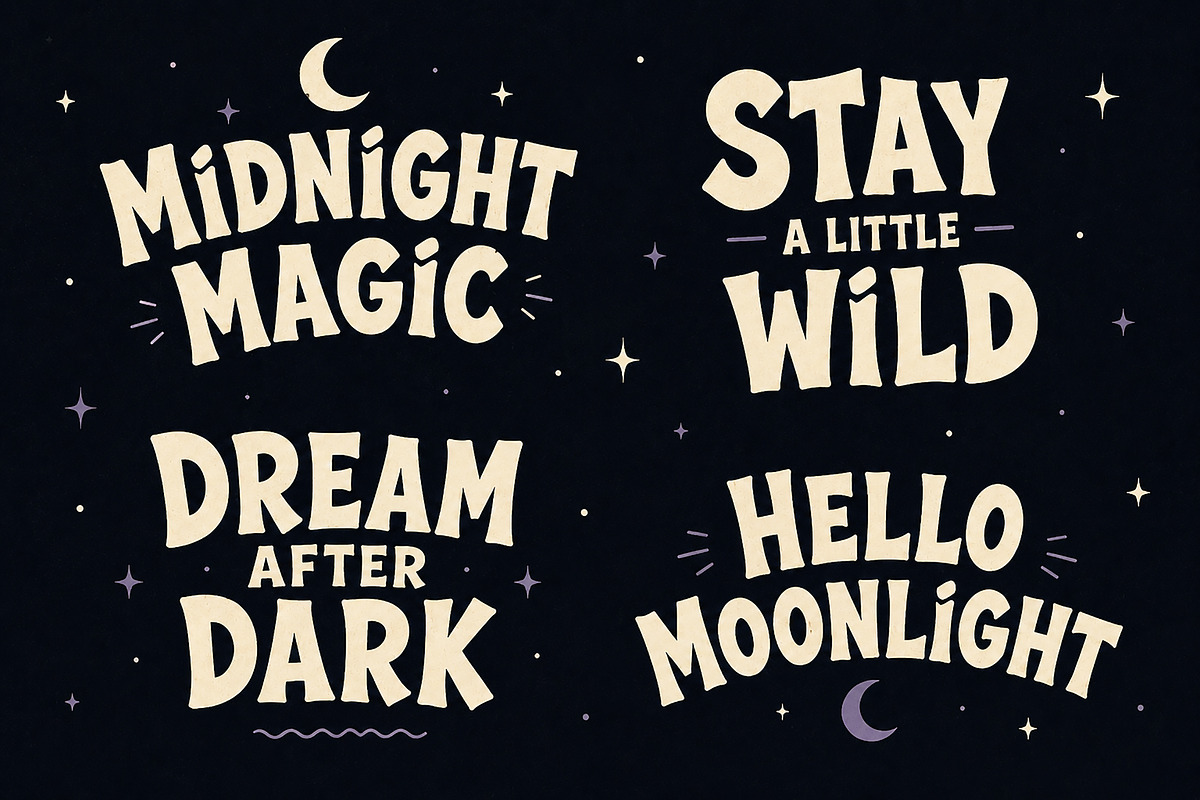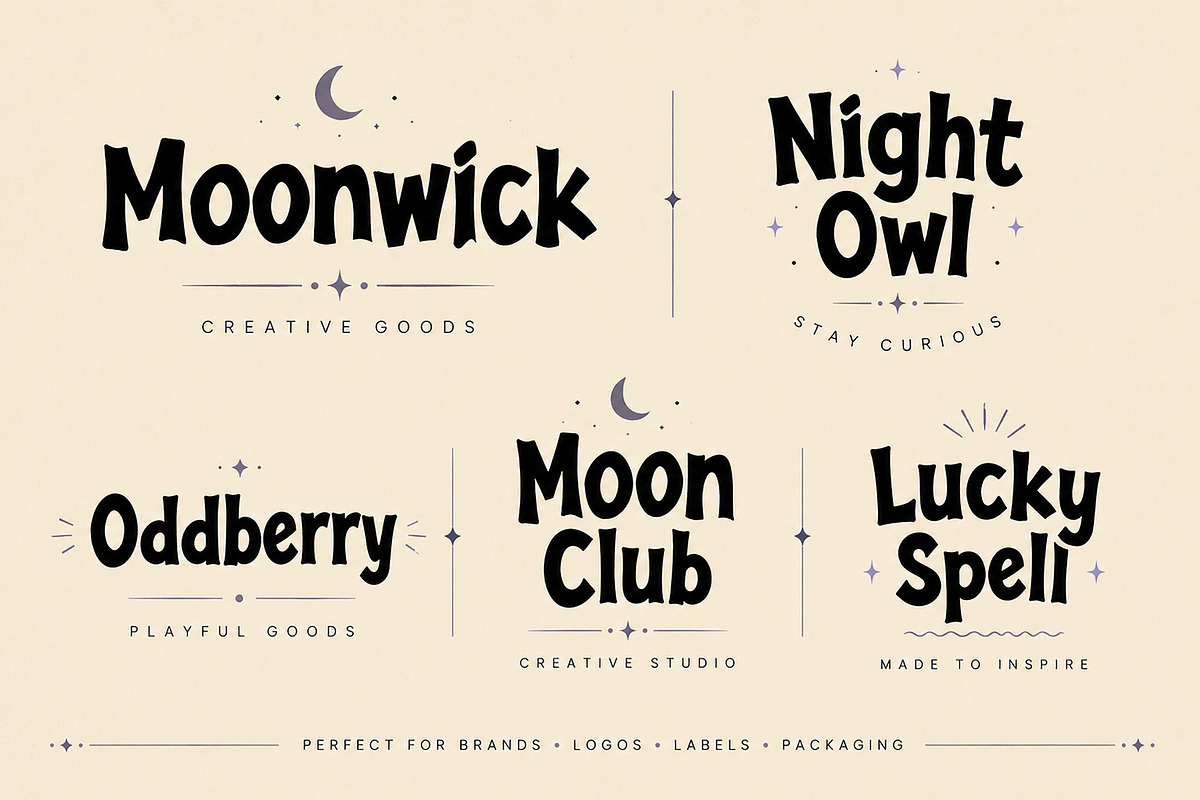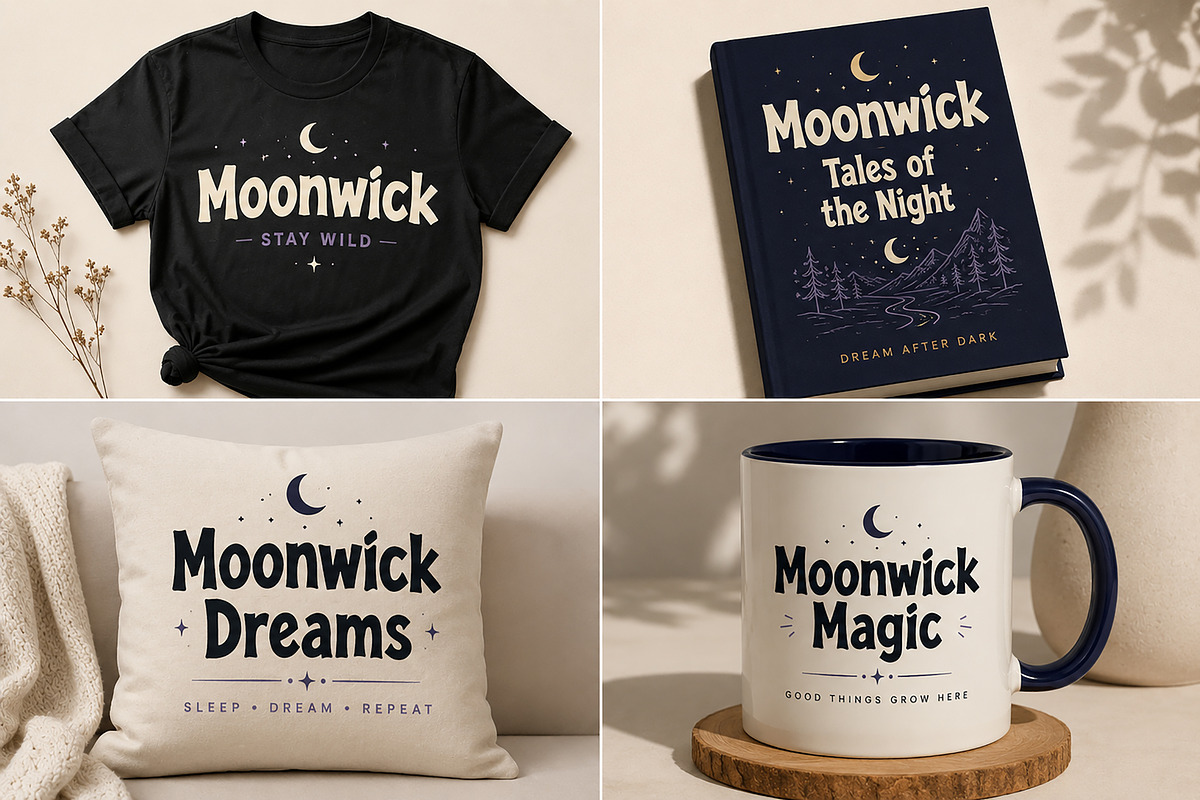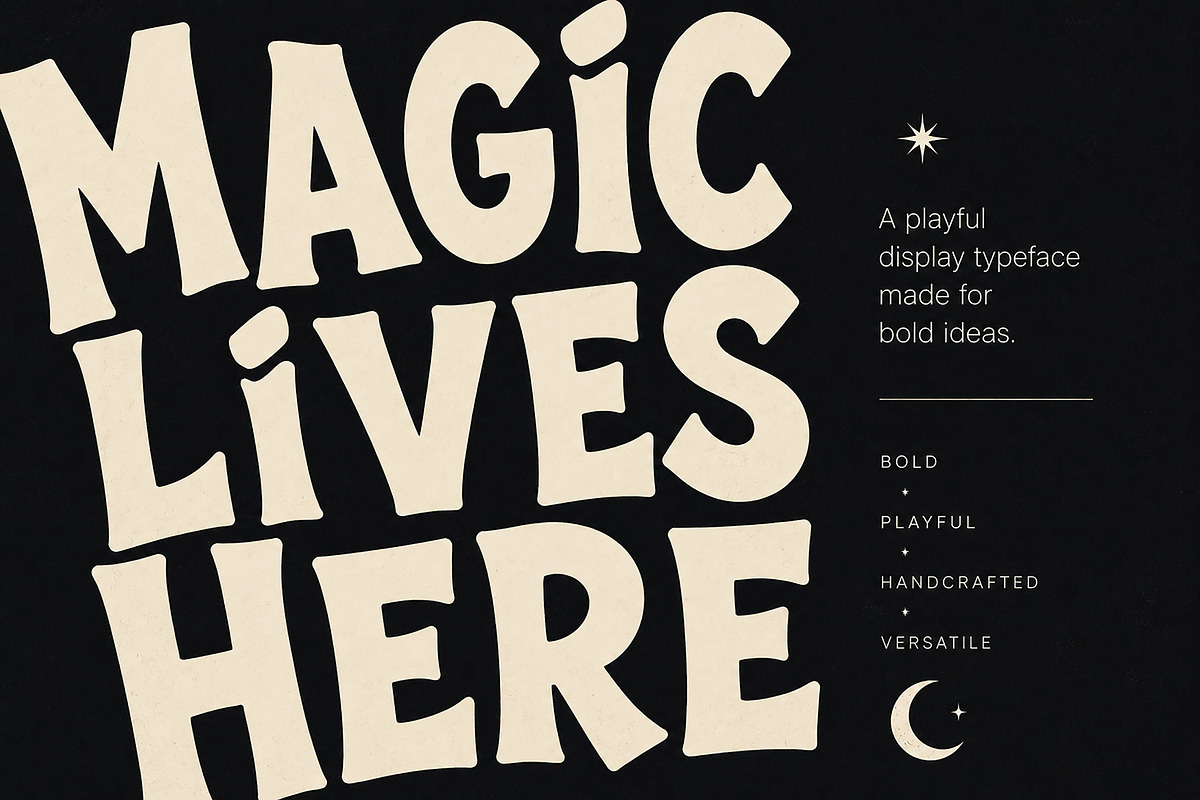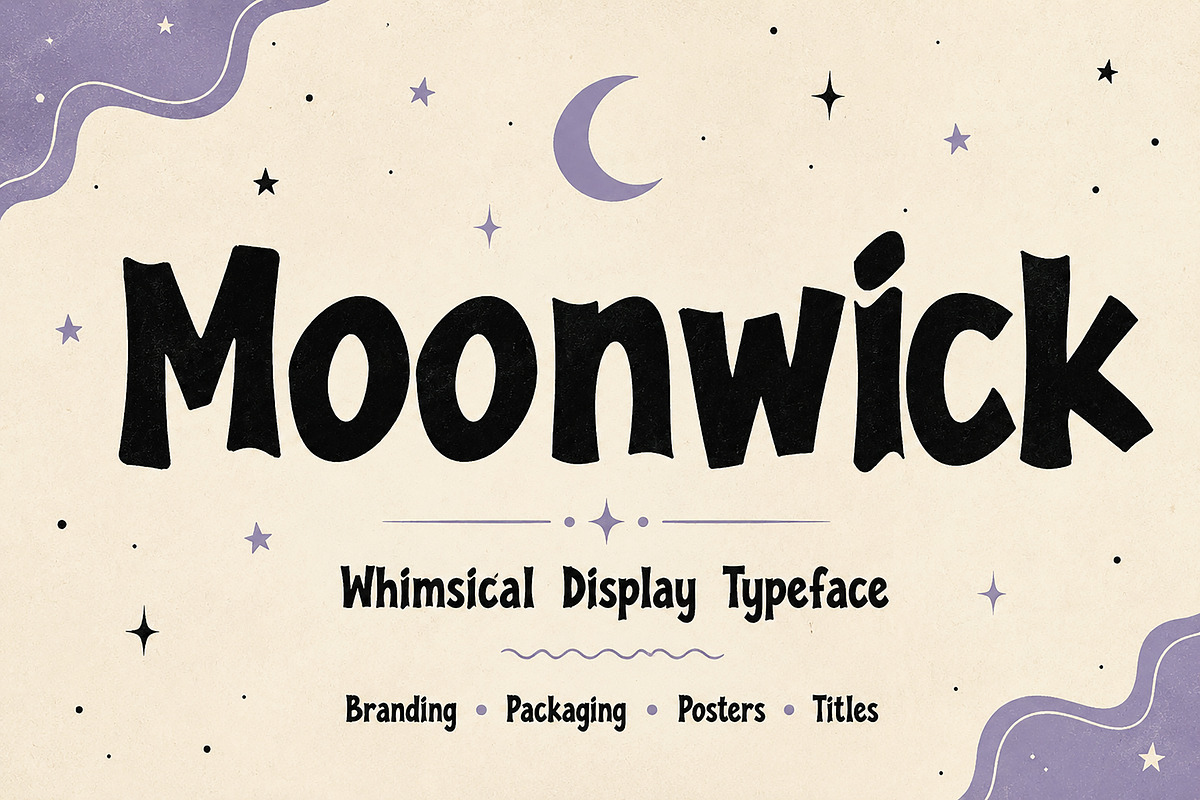
Moonwick
Moonwick – Whimsical Playful Display Font
Moonwick is a bold, whimsical display font with a playful handcrafted personality. Featuring quirky letterforms, charming irregular shapes, and an expressive visual rhythm, Moonwick is designed to make headlines, branding, and creative projects feel instantly more memorable.
Its fun yet distinctive character makes it a great choice for designers looking to create eye-catching typography without losing a clean and professional presentation. From playful branding and packaging to posters, book covers, merchandise, and social media graphics, Moonwick brings a unique handmade touch to every design.
Logo & Branding
Posters & Headlines
Book & Magazine Covers
T-Shirt Designs
Mugs & Merchandise
Labels & Stickers
Invitations & Greeting Cards
Creative Editorial Designs
Kids & Playful Projects
Whimsical and Fantasy-Themed Designs
Unique whimsical display style
Bold and playful letterforms
Handcrafted character
Eye-catching headline appearance
Perfect for large display typography
Font Style: Display / Whimsical / Playful / Handcrafted
Bring personality to your next creative project with Moonwick — a playful display font made for bold ideas, memorable brands, and designs that deserve to stand out.